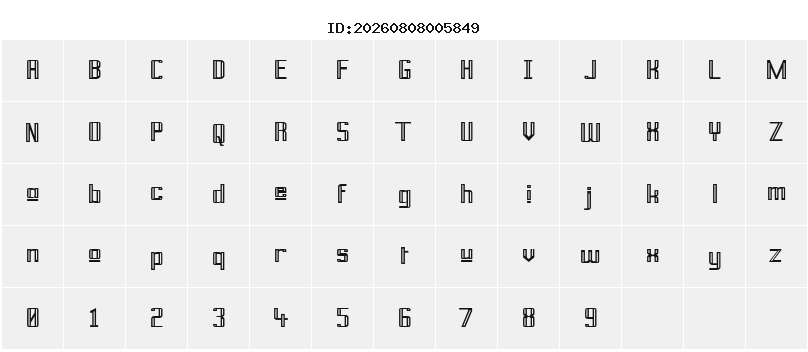
Prussian Brew Upper Preview
About Prussian Brew Upper.ttf
Prussian Brew Upper.ttf is a modern, elegant sans-serif font designed for ultimate readability and visual harmony. Perfect for branding, headlines, web design, and print materials.